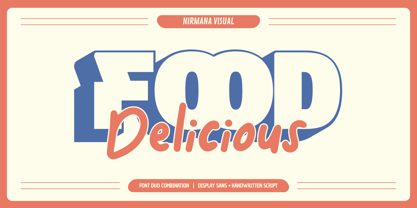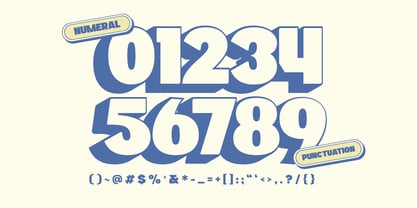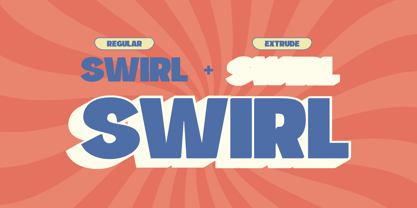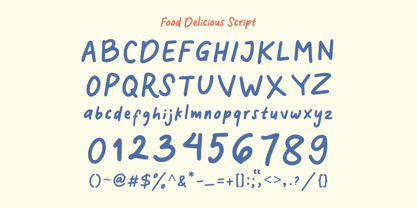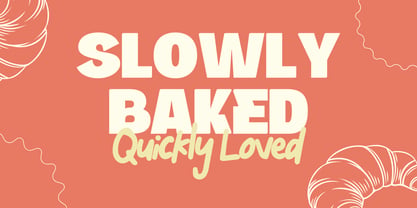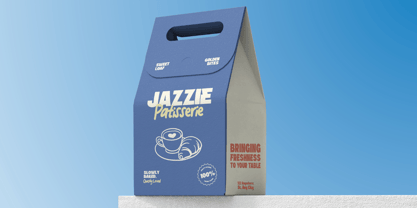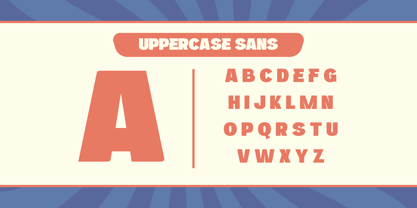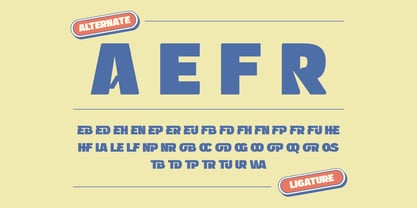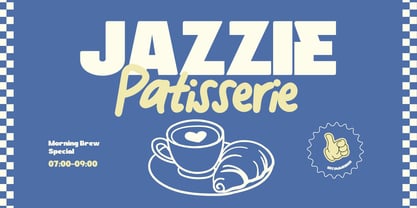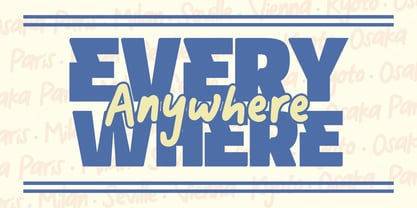
Food Delicious
by Nirmana Visual
The Food Delicious Font Family was designed by Sigit Dwipa and published by Nirmana Visual. Food Delicious contains 3 styles and family package options. More about this family
Food Delicious is a playful font duo designed to make your food promotions stand out. It combines a clean sans with bold extrude and a charming handwritten style, perfect for menus, packaging, cafe branding, or social media posts. The sans brings clarity and impact, while the handwritten touch adds warmth and authenticity. Together, they create an appetizing and eye-catching look that captures attention and enhances the flavor of your design.
Designers: Sigit Dwipa
Foundry: Nirmana Visual